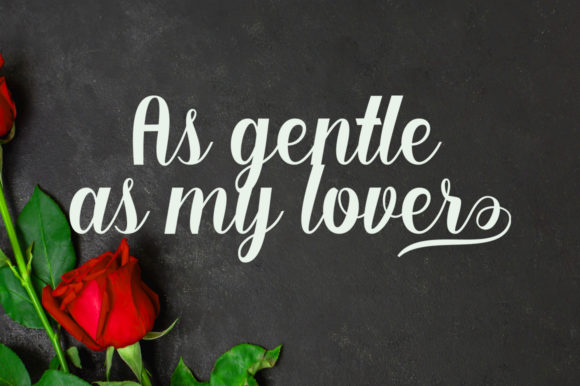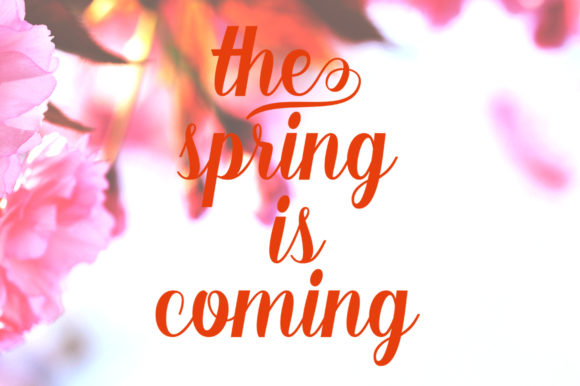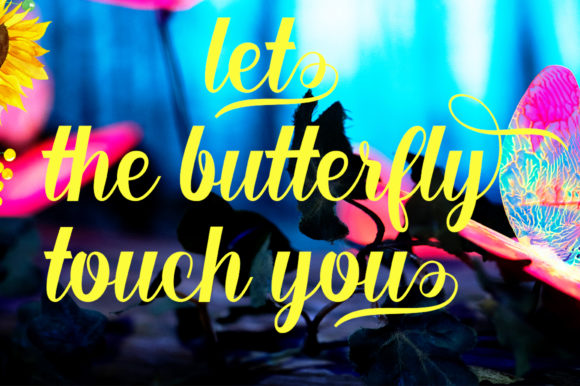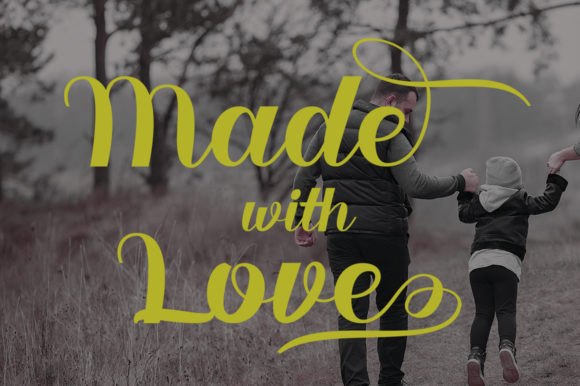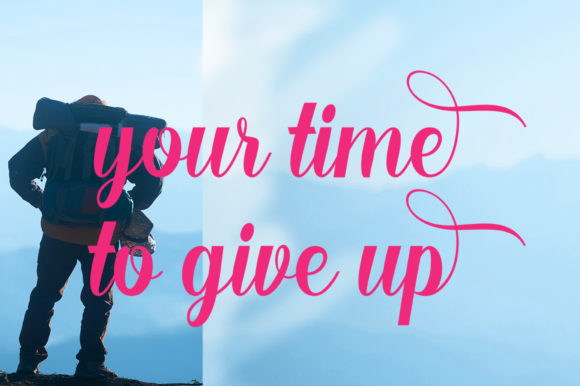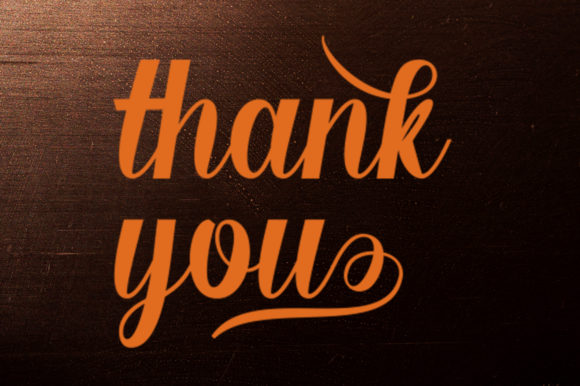
The Quest for the Perfect Font: Discovering Better Days
I’ll never forget the time I was working on a wedding invitation project, and I just couldn’t find the right font. My client wanted something that felt elegant, yet playful; something that would set the tone for a beautiful, rustic wedding. I scoured the internet, tried out dozens of fonts, but nothing seemed quite right. That was until I stumbled upon Better Days, a modern and cute handwritten font that stole my heart.
First Impressions: A Love Affair with Better Days
Better Days is more than just a font – it’s an experience. From the moment I opened it up, I knew I was in love. The authentic feel, the cute glyphs, and swashes… it was like the designer had spoken directly to my creative soul. I couldn’t wait to dive in and explore all it had to offer.
- ✨ PUA Encoding: Better Days is PUA encoded, which means accessing all the cute glyphs and swashes is a breeze!
- ✅ Alternate Glyphs and Ligatures: The font features a wealth of special features, including alternate glyphs and ligatures, giving you endless creative possibilities.
- 💕 Authentic Feel: Better Days has a unique, handwritten charm that’s perfect for creating gorgeous wedding invitations, beautiful stationary art, eye-catching social media posts, and cute greeting cards.
- 🤔 Learning Curve: While the font is easy to use, it may take some time to get familiar with all the glyphs and swashes. Be prepared to spend a little time exploring and experimenting.
The Story Behind Better Days
Better Days was designed with love and care by a talented font designer who wanted to create a font that would bring joy and happiness to creative people. The designer drew inspiration from everyday life, combining modern and traditional elements to create a unique and authentic feel.
A: PUA (Private Use Area) encoding is a way of encoding fonts that allows designers to access additional glyphs and swashes. This means you can easily access all the cute glyphs and swashes in Better Days.